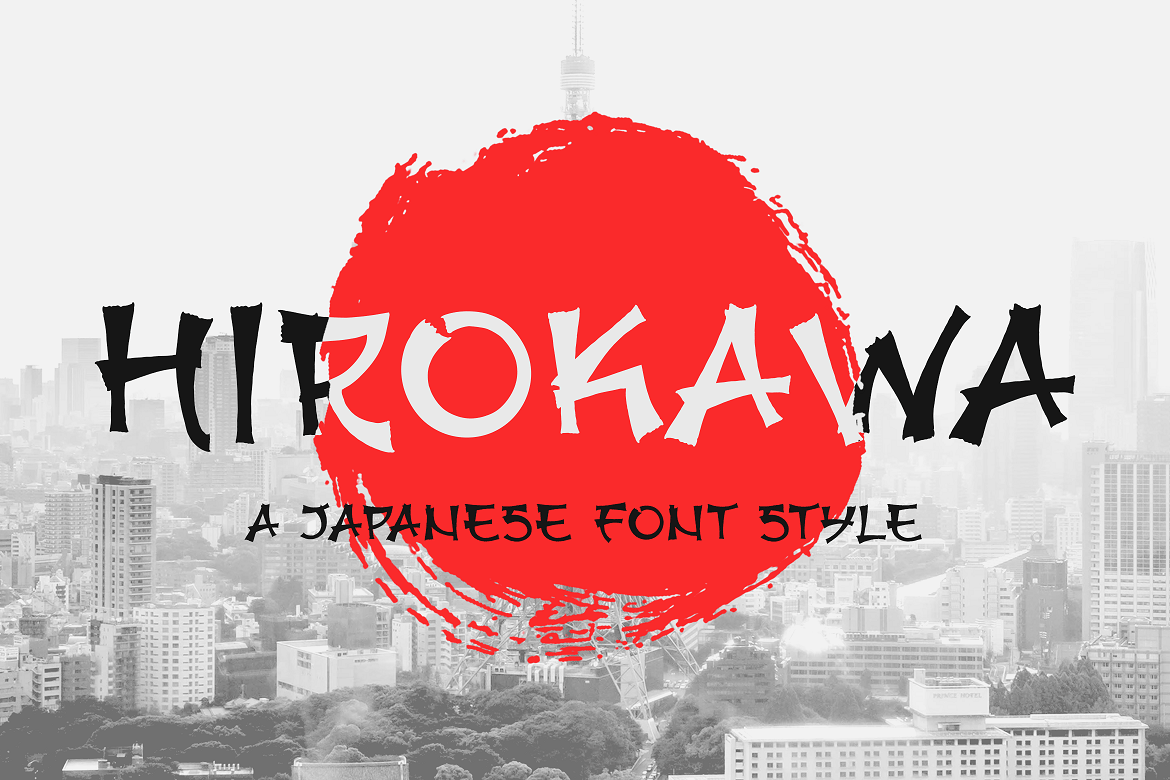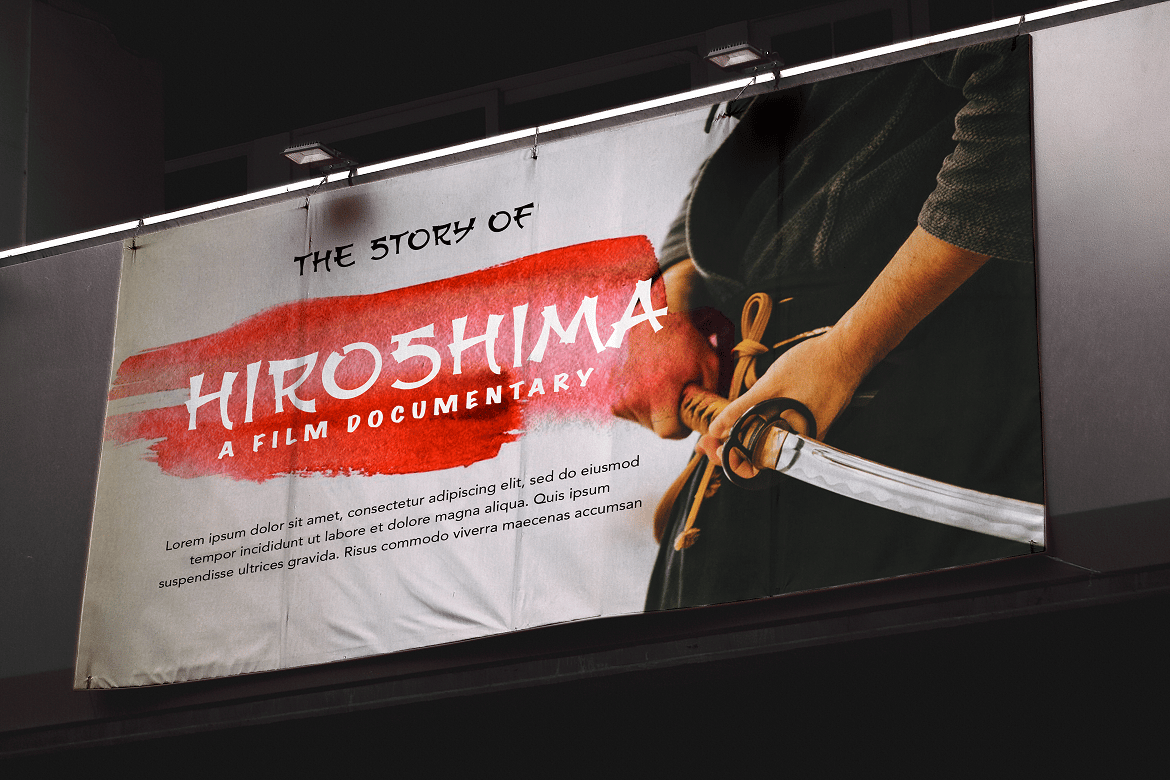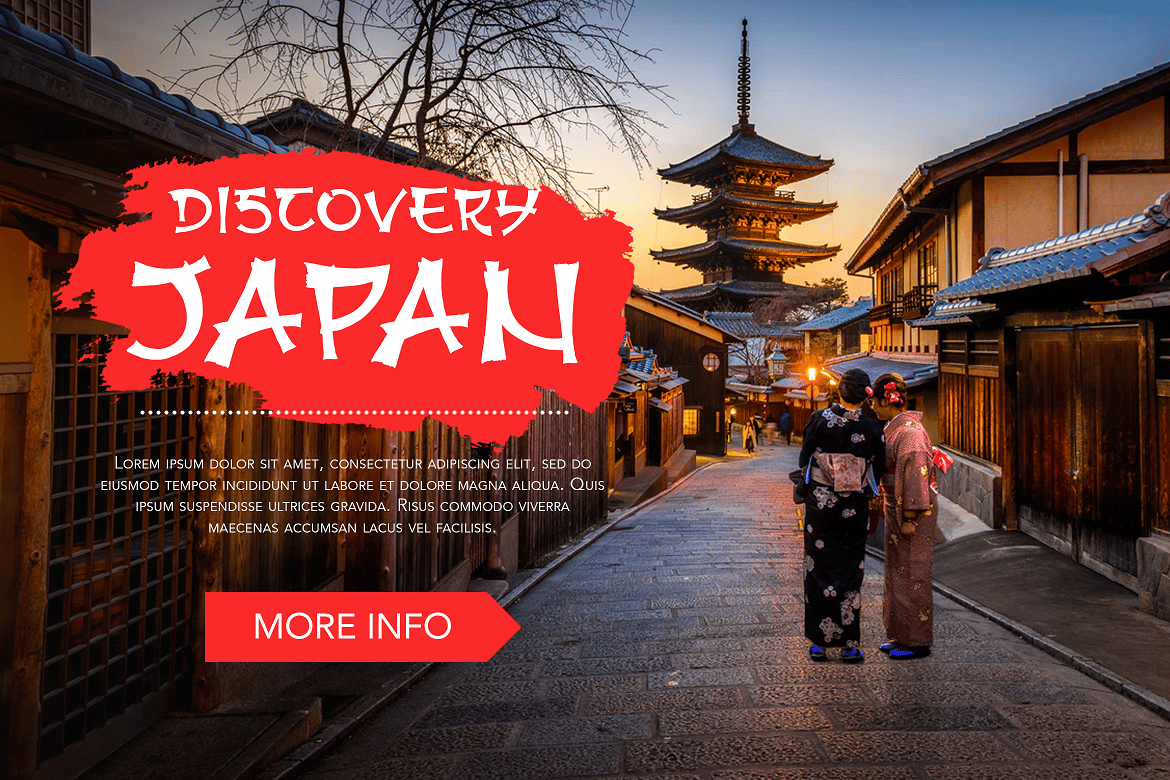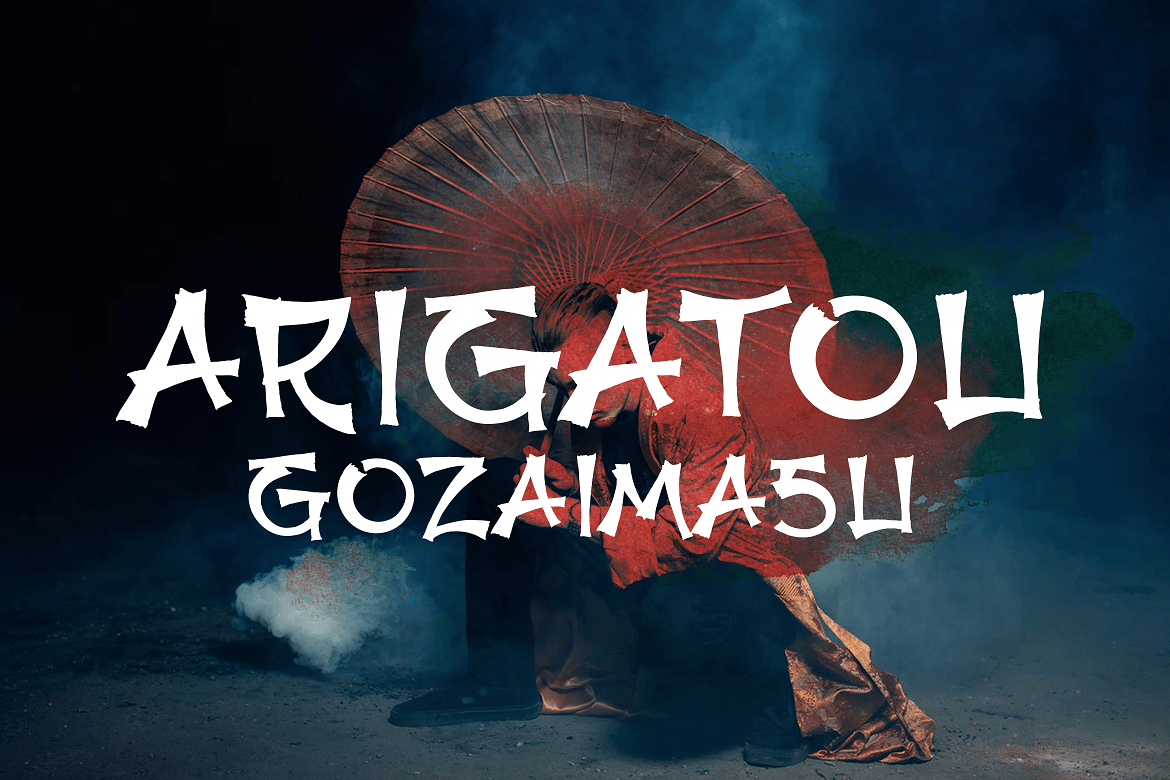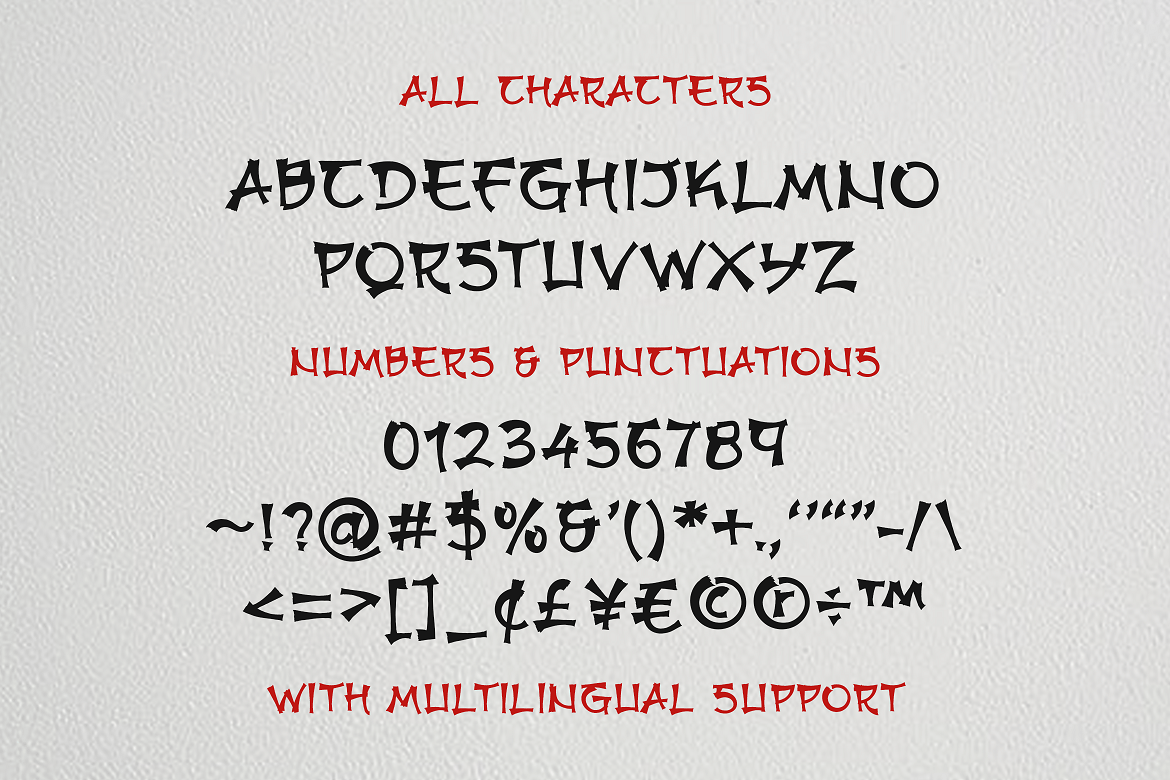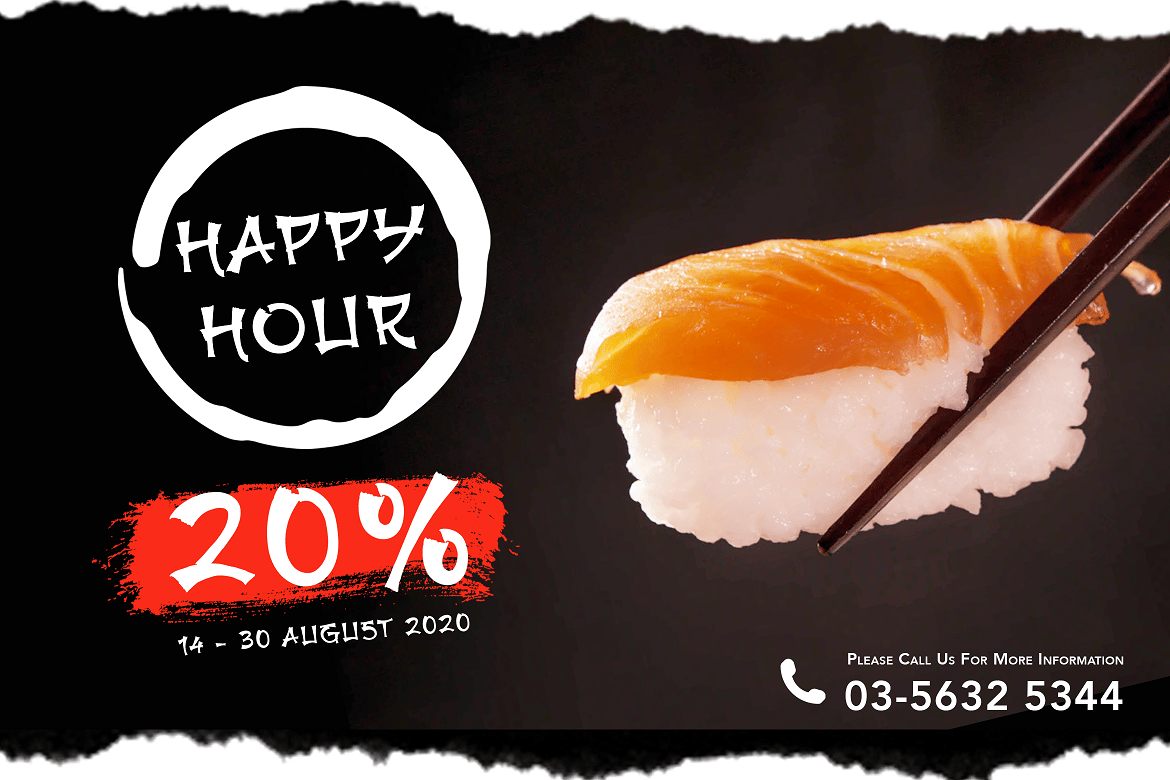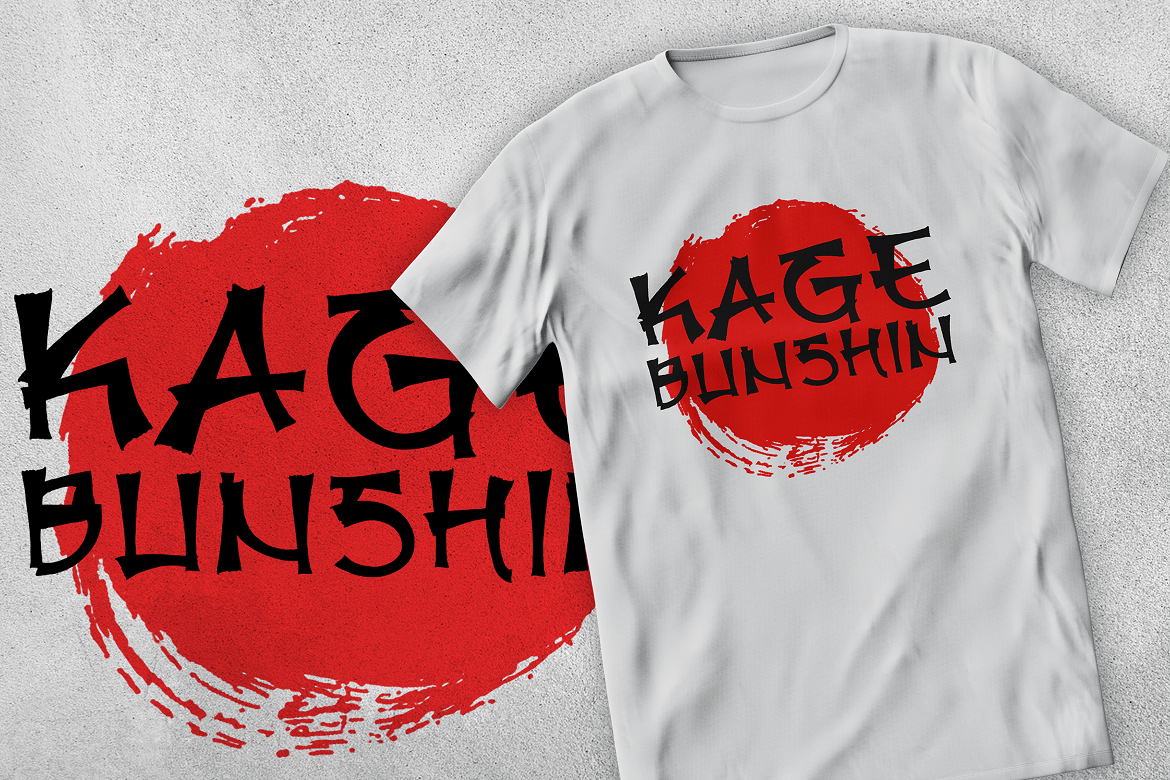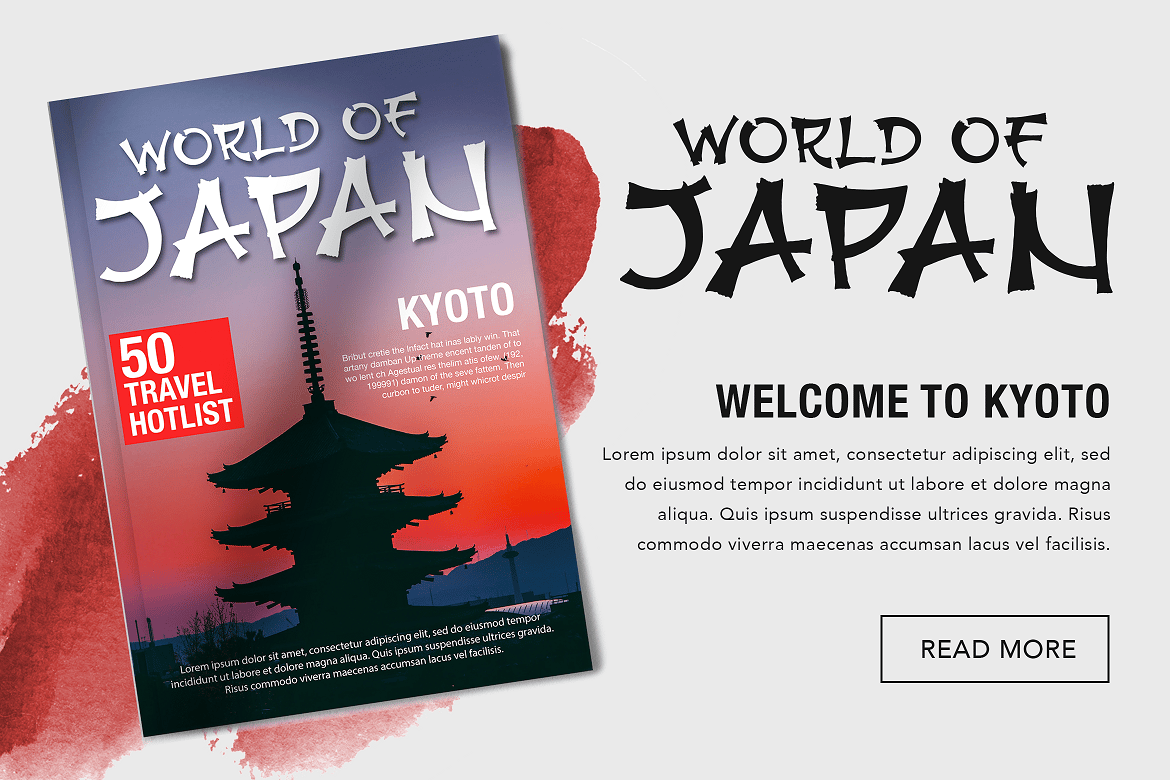
Japanese Font
Introducing Hirokawa – A Japanese Font
Konnichiwa! Hirokawa is a handcrafted, elegant font, containing the beautiful Japanese culture within. Use this font on your work, websites, social media, presentations, printed materials and many more!
Inspire your audience, clients, or guests with this stylish Japanese font.
- Multilingual & Ligature Support
- Full sets of Punctuation and Numerals